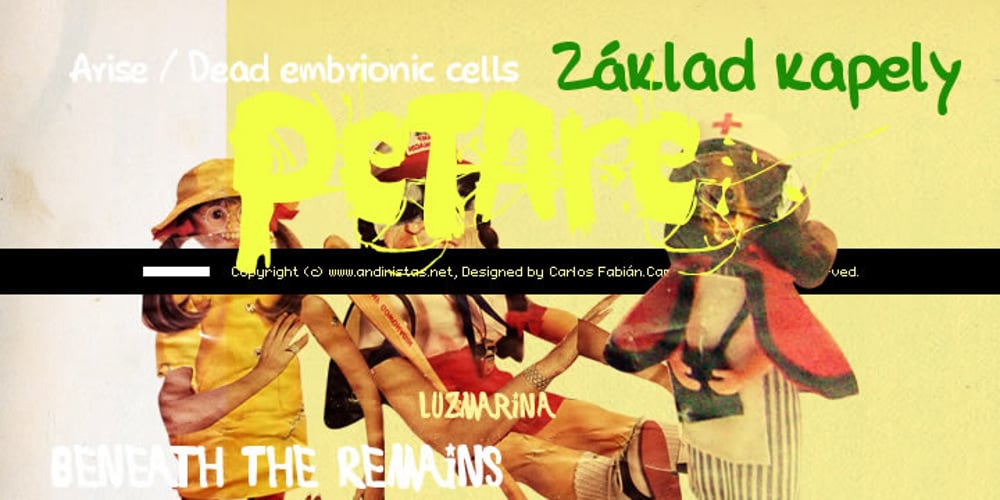
Gancho Petare Font Family was designed by Carlos Fabián Camargo Guerrero and published by Andinistas. Gancho Petare contains 4 styles and family package options. Gancho Petare follows the naivety marks typical in the paintbrush letters drawn in the popular market’s planks of Petare in Caracas, Venezuela. Gancho Petare is a family of experimental origin consisting of 4 styles: 1, 2, 3 and Dingbats (Dingbats includes 26 illustrations characters) Gancho Petare, 1, 2 include the complete character set with lower and upper case letters, numbers, accents, diacritics, punctuation and monetary symbols. All of the fonts included in this family are available in the Open Type format and they are Mac and PC compatible.